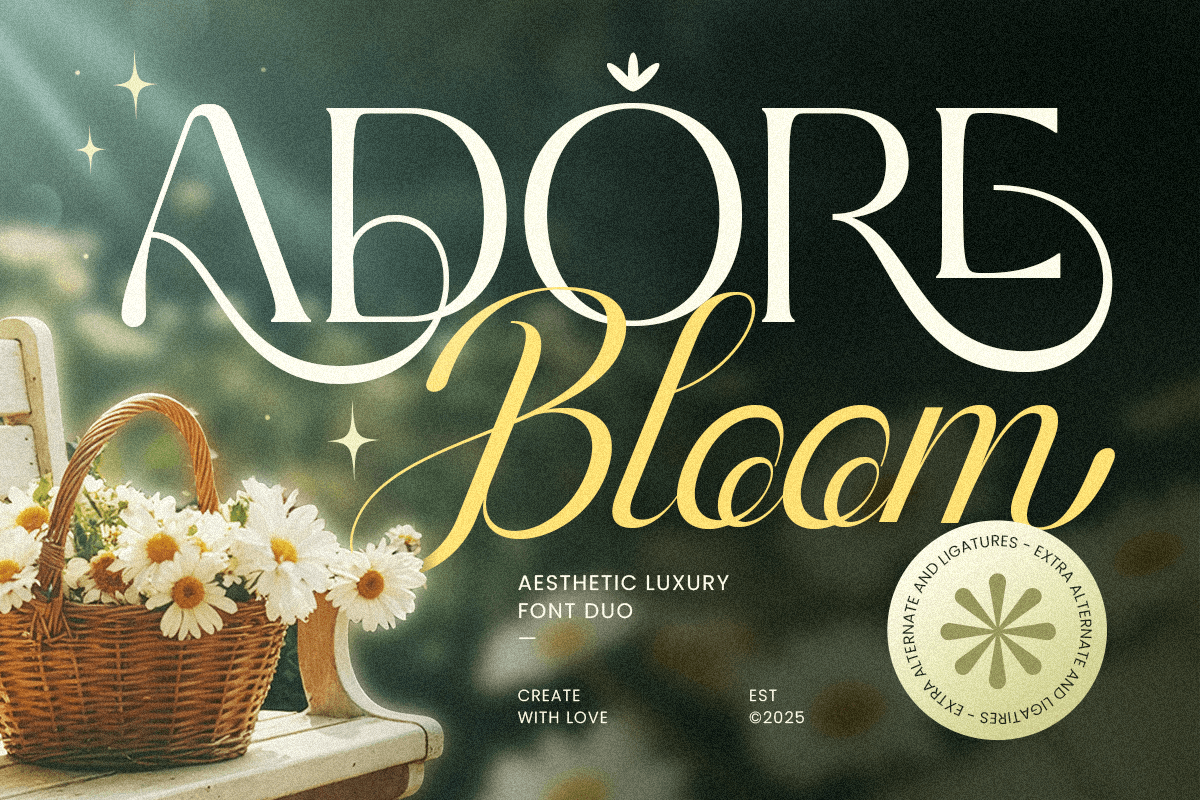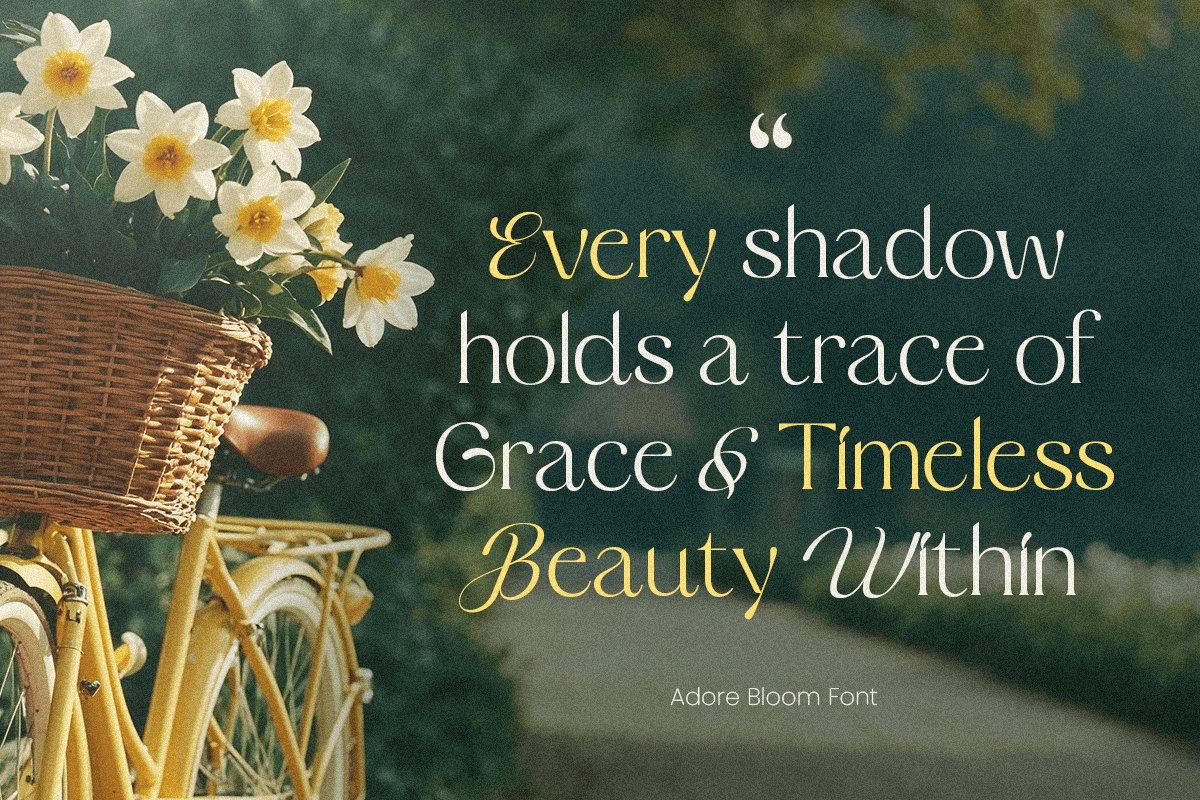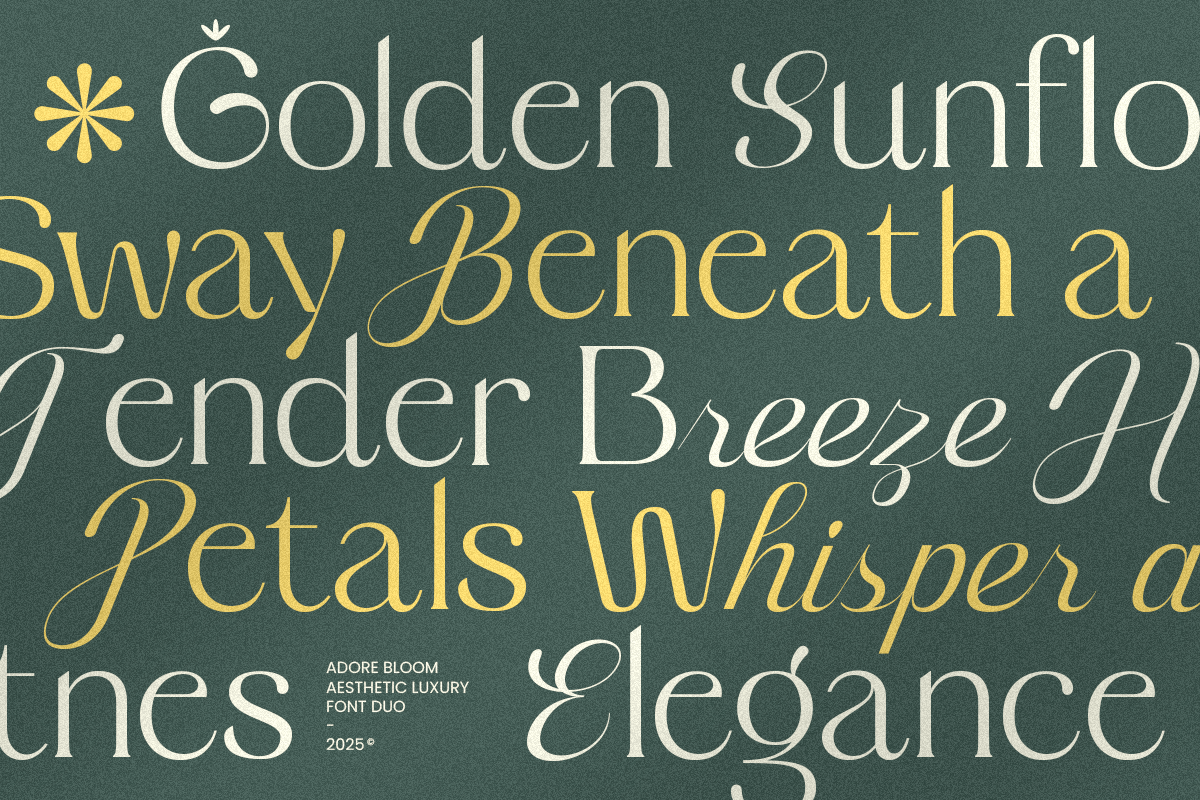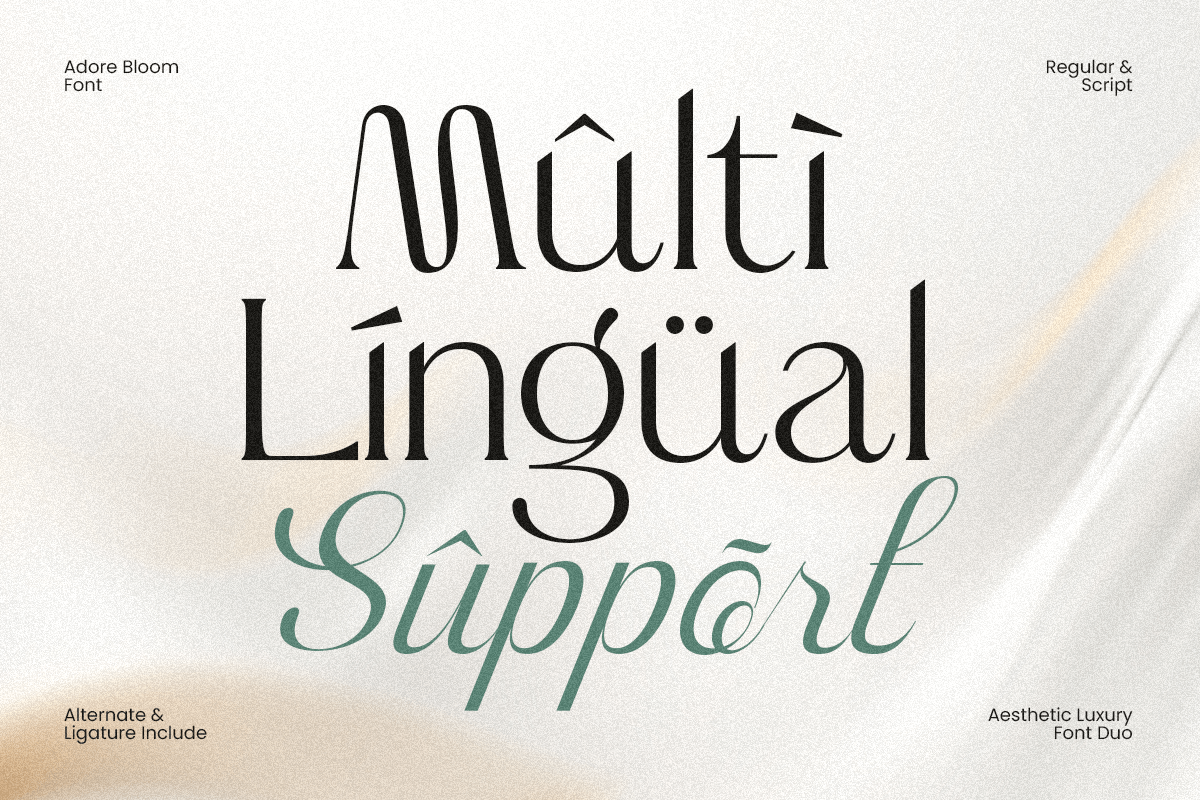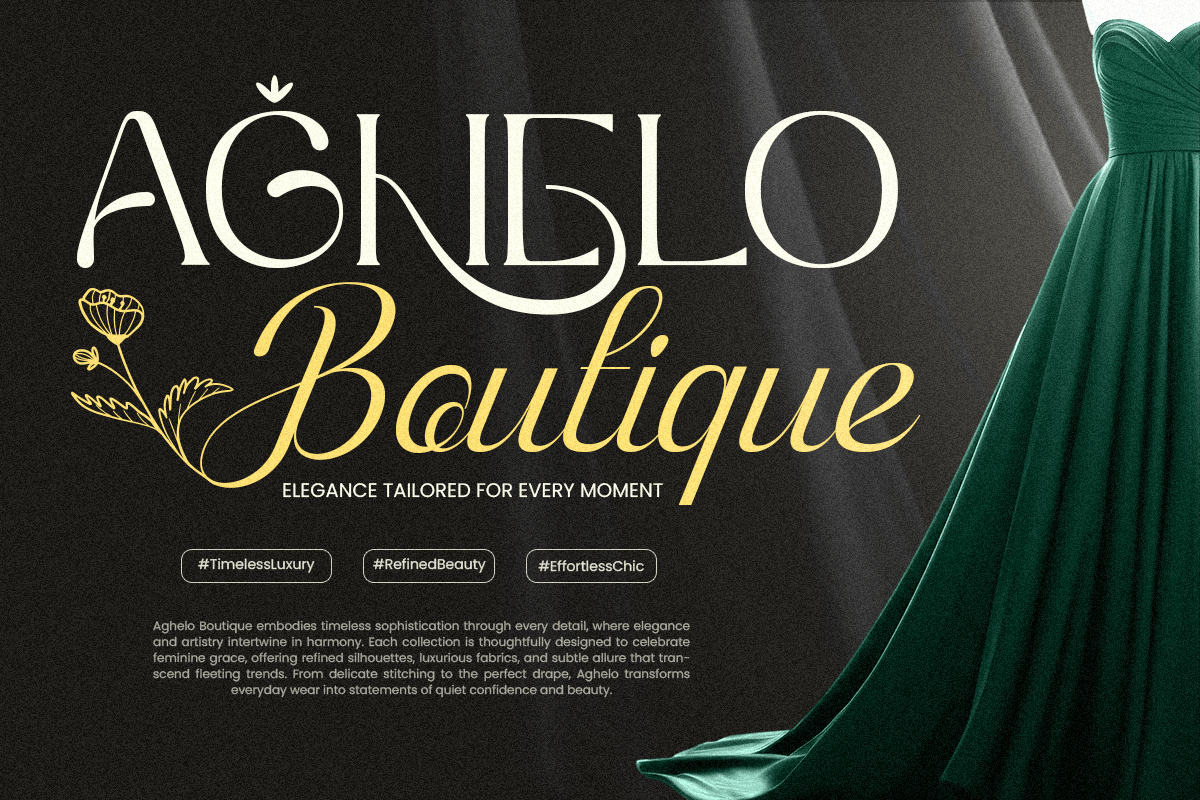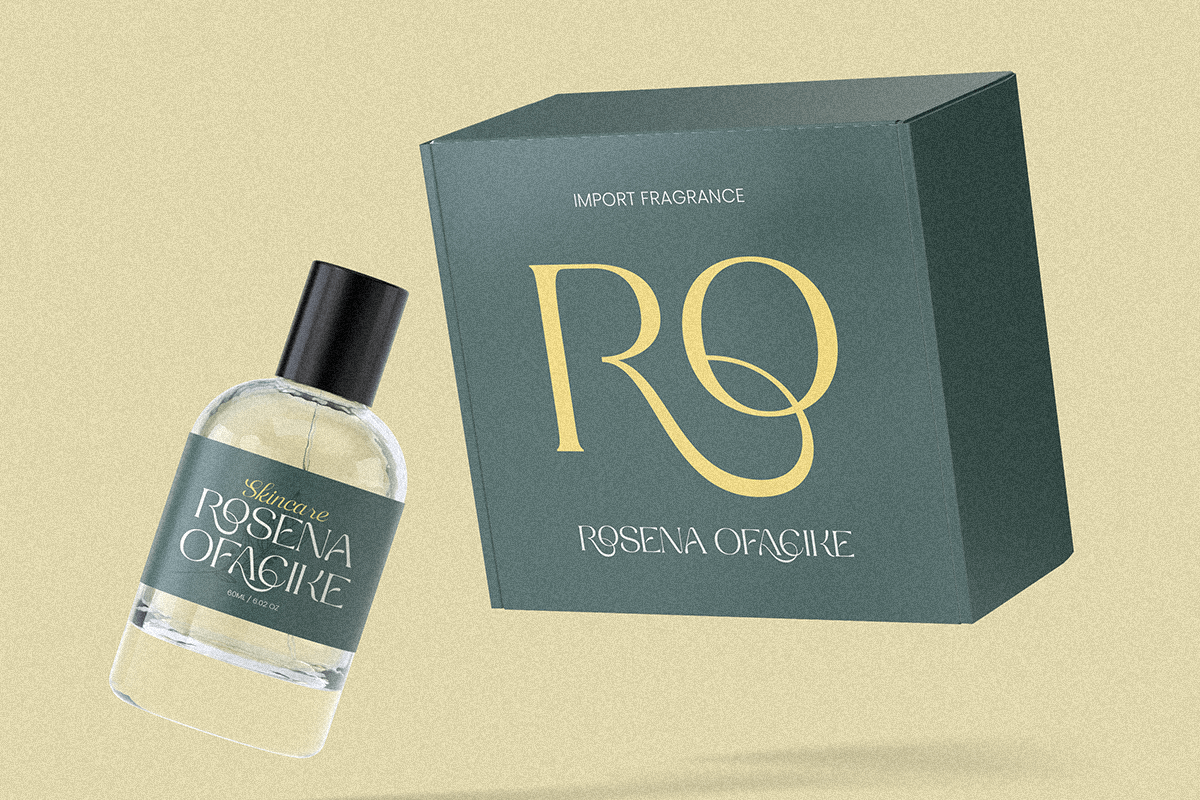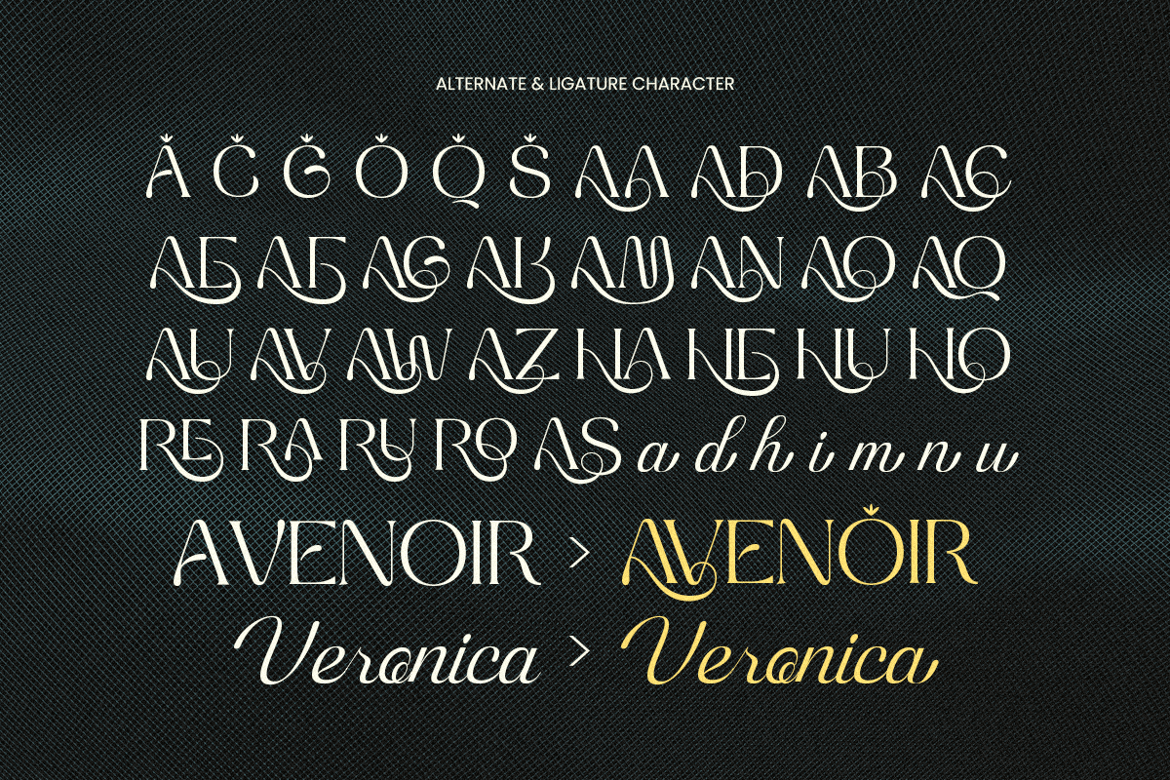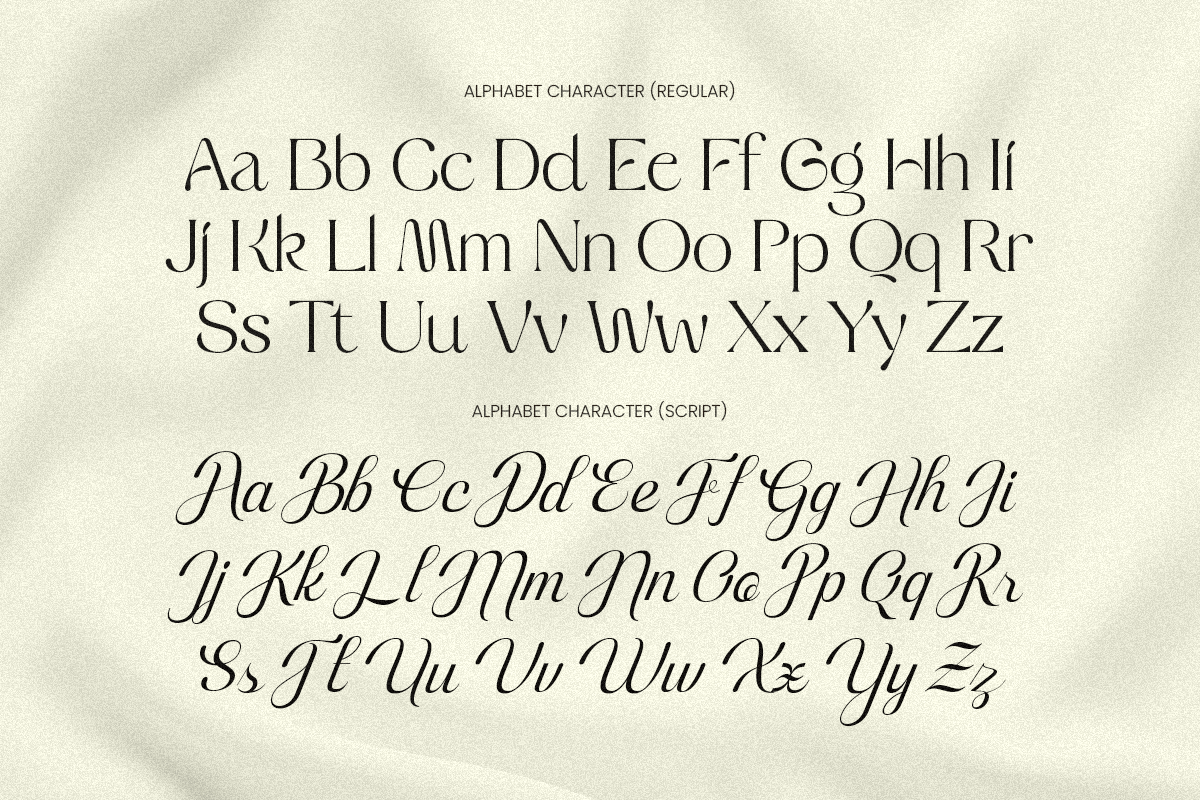
Adore Bloom - Aesthetic Luxury Font Duo
Adore Bloom is an aesthetic luxury font duo that harmoniously combines elegance and artistry. Featuring a refined serif paired with a delicate script, this duo creates a sophisticated visual identity perfect for fashion brands, wedding invitations, and premium packaging.
The serif font brings a timeless, confident presence ideal for logos and titles, while the script font adds a romantic handwritten touch for accents and signature-style designs. Together, they form the perfect pair — elegant, modern, and effortlessly stylish.
Inspired by luxury editorials and contemporary aesthetics, Adore Bloom delivers versatility and charm for both print and digital use. Whether you’re designing high-end branding, stationery, or social media visuals, it adds depth and beauty to every composition.
Adore Bloom – Aesthetic Luxury Font Duo Features
• Two complementary fonts (Serif & Script) for elegant contrast
• Perfect for fashion, wedding, and premium branding
• Timeless design with modern luxury details
• Great for logos, invitations, packaging, and editorials
• Uppercase, lowercase, numerals, and punctuation included
• OpenType features for creative typographic control